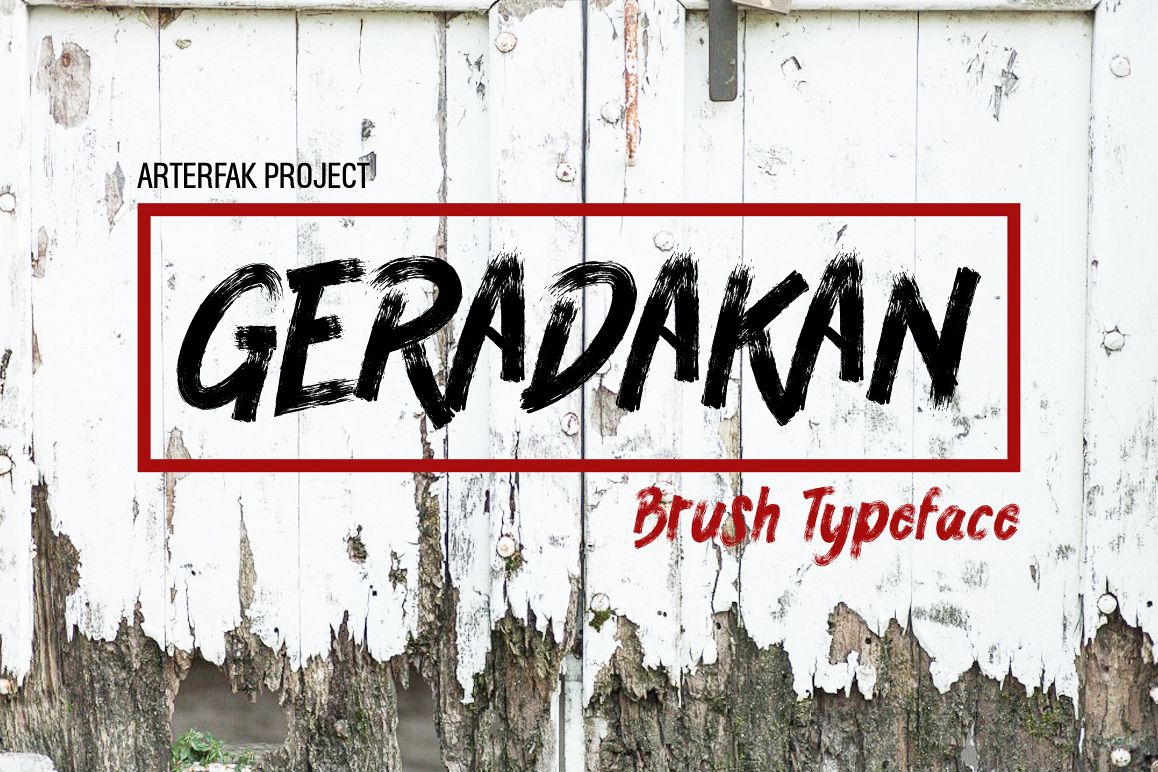
GERADAKAN TYPEFACE
Custom hand brush typeface inspired from children hand writing and brush typography. optimize your design, for your poster, greeting design, flyer, quotes and etc. Tested on Adobe Illustrator, Photoshop, InDesign and etc.